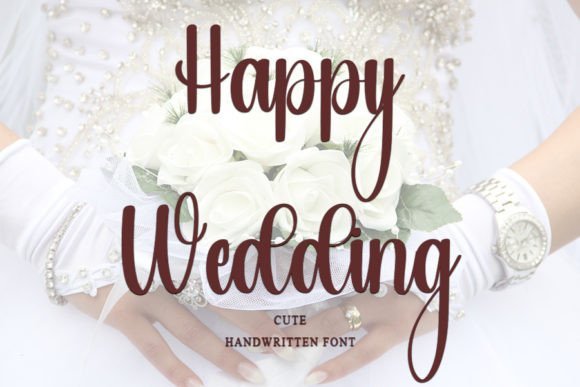
The Perfect Font for Your Dream Wedding Design
Have you ever found yourself staring at a blank page, waiting for inspiration to strike? For designers, this moment can be both thrilling and intimidating. But what if I told you that there’s a font that can spark your creativity and bring your designs to life? Enter the Happy Wedding Font, a beautiful handwritten font that adds an elegant touch to any project.
This versatile font is perfect for creating stunning wedding invitations, love letters, and other romantic designs. Its timeless style and distinct flair make it a valuable asset for designers looking to create something truly special. Whether you’re working on a wedding project or simply want to add a touch of whimsy to your designs, the Happy Wedding Font is sure to impress.
Happy Wedding Font Key Features
- Font Style: A beautiful, elegant script font designed specifically for wedding invitations and other special occasions.
- Unique Characteristics: Features a unique blend of classic and modern elements, with intricate flourishes and elegant curves, making it perfect for romantic and whimsical designs.
- Font Pairing: Can be paired with a range of serif and sans-serif fonts to create a beautiful and harmonious design.
As a designer, I was excited to dive into the “Happy Wedding Font” and see what it had to offer. Here are my honest thoughts:
- Cute and playful aesthetic: The font is perfect for a whimsical or rustic-themed wedding, and its unique charm will add a personal touch to your design.
- Customizable: The font comes in various styles, from casual to formal, making it easy to match your design needs.
- Wide range of languages: This font supports a wide range of languages, making it a great option for international weddings.
- Not ideal for formal weddings: While the font is customizable, its playful nature may not be suitable for formal or traditional weddings.
Overall, I think the “Happy Wedding Font” is a great option for designers who want to add a touch of whimsy to their wedding designs. While it may not be suitable for every type of wedding, its unique charm and customizable options make it a solid choice for the right project.
For best results, pair Happy Wedding Font with a simple and elegant design. Use it for titles, headings, and short paragraphs to create a visually appealing effect.
Happy Wedding Font is perfect for:
- Wedding websites and social media graphics
- Wedding programs and menus
- Love-themed posters and prints